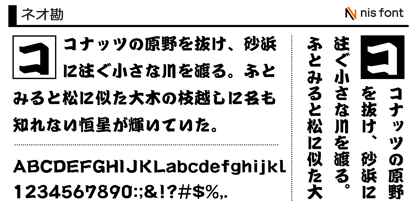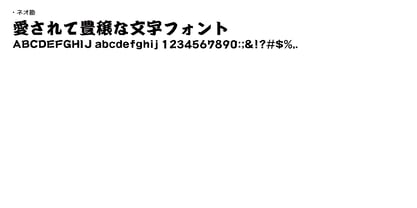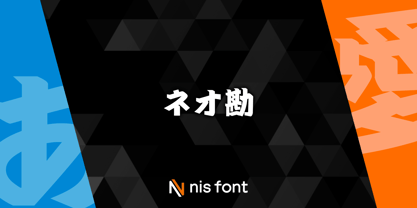
OT-NIS_NEOK
by NIS Fonts
The OT-NIS_NEOK Font Family was designed by and published by NIS Fonts. OT-NIS_NEOK contains 1 styles. More about this family
To bring a fresh breeze to the traditional Kanteiryu style, we intentionally removed its rounded elements. This modernized Kanteiryu style pairs well not only with traditional Kabuki theater buildings but also with sleek, high-rise intelligent buildings. Supports the JIS2004 character set.